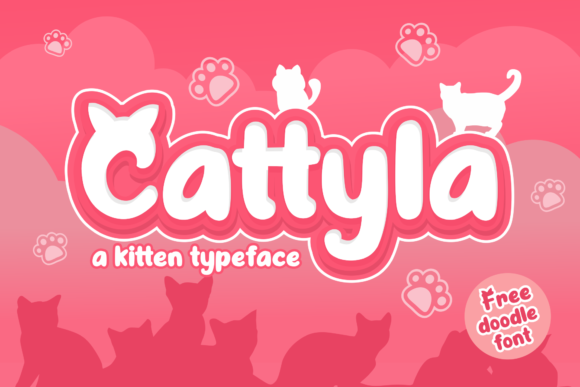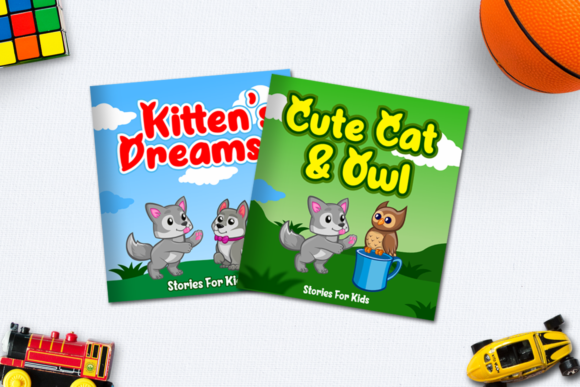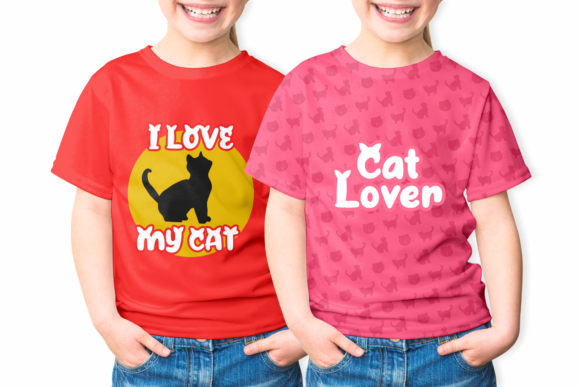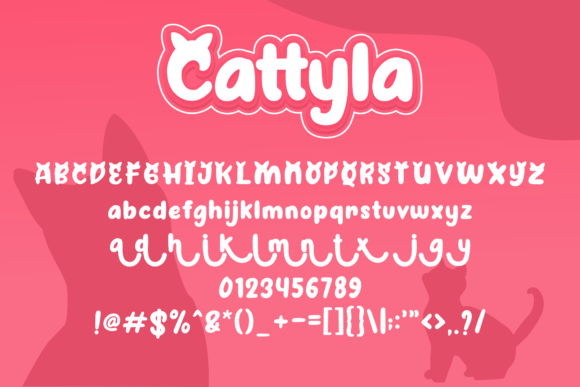
I've never needed a cat themed font, but when it comes up Cattyla is probably the one that I'll go with. Each capital letter has cat ears on top and the letters look like they were drawn with a wet marker.